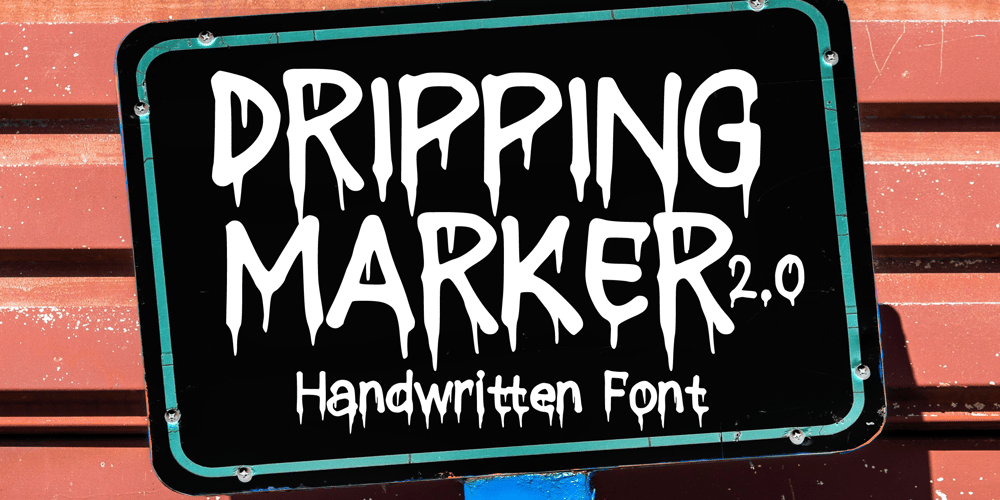
Dripping Marker 2.0
Dripping Marker 2.0 font
Dripping Marker 2.0 Font Family was designed by Gabriel Valentinus and published by Mvmet. Dripping Marker 2.0 contains 1 styles and family package options. Dripping Marker 2.0 is a cool dripping painted-style display font suitable for various projects and now comes with new version which include English, French, German, Italian, and Spanish. You can use it for anything ranging from t-shirts, kids’ book designs, and greeting cards to stickers and posters, or anything that needs a casual touch. Fall in love with its incredibly versatile style and use it to create lovely designs!